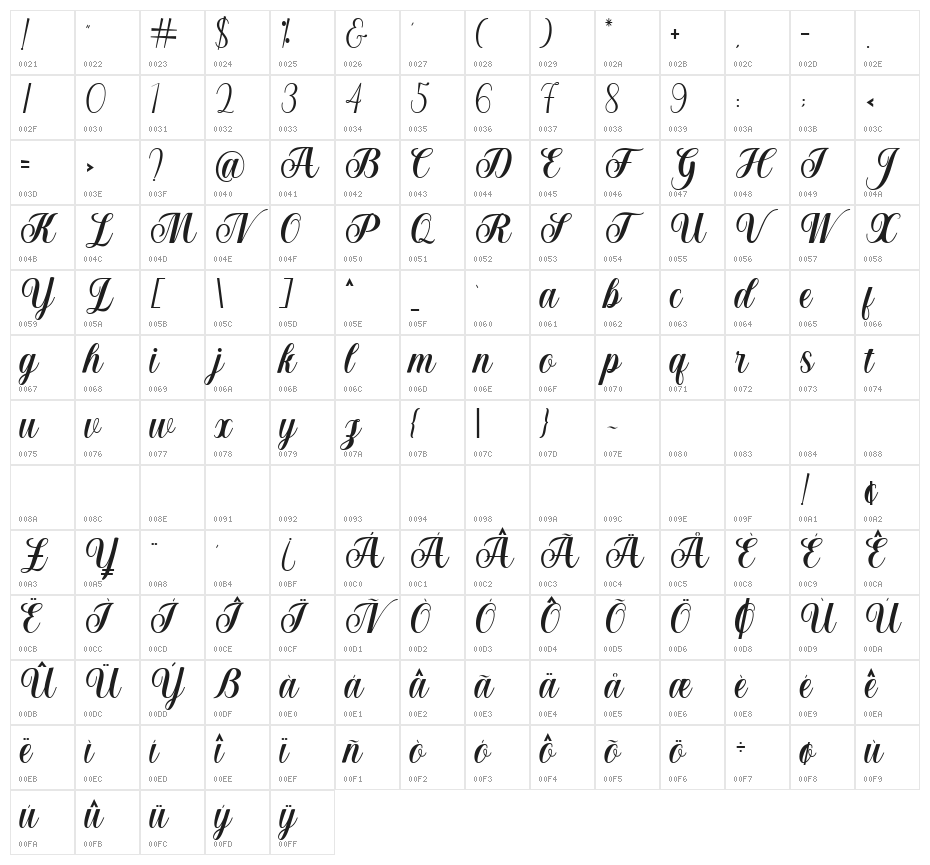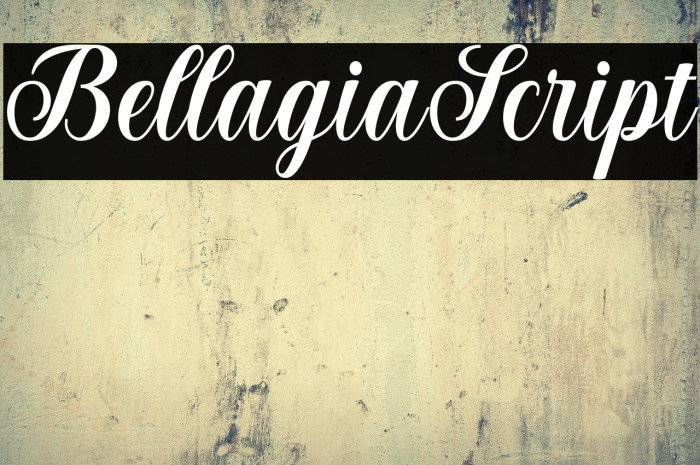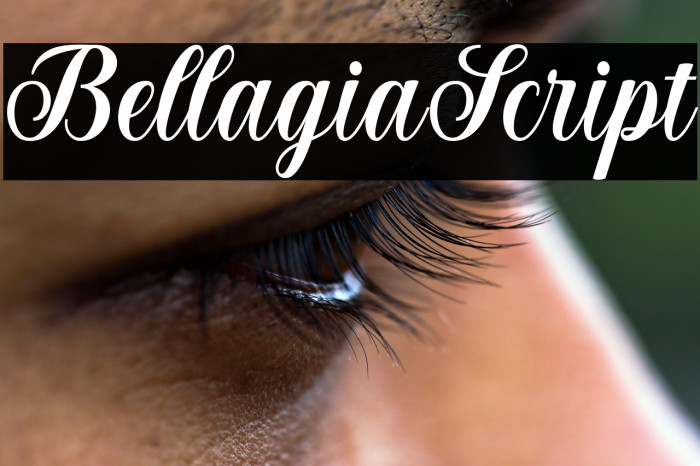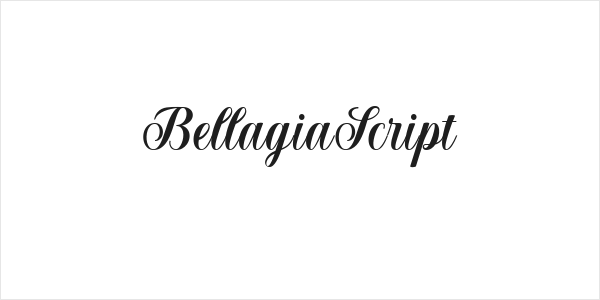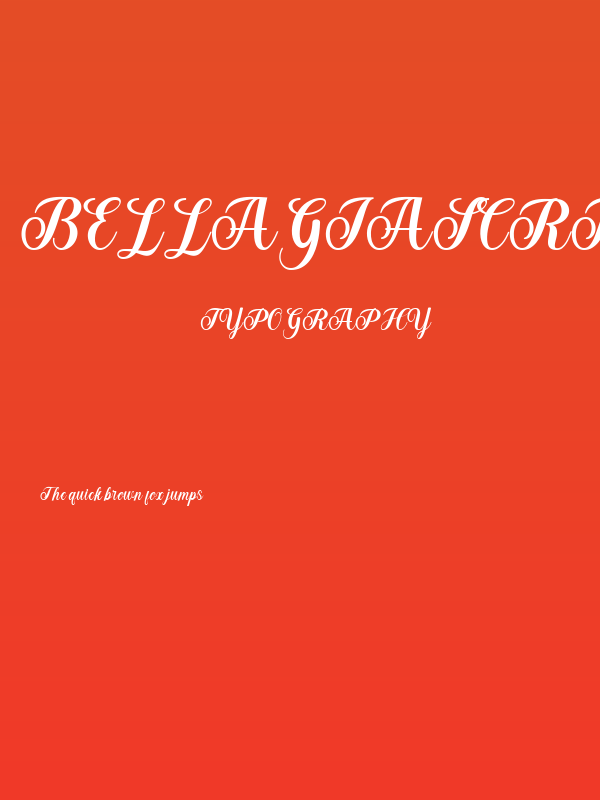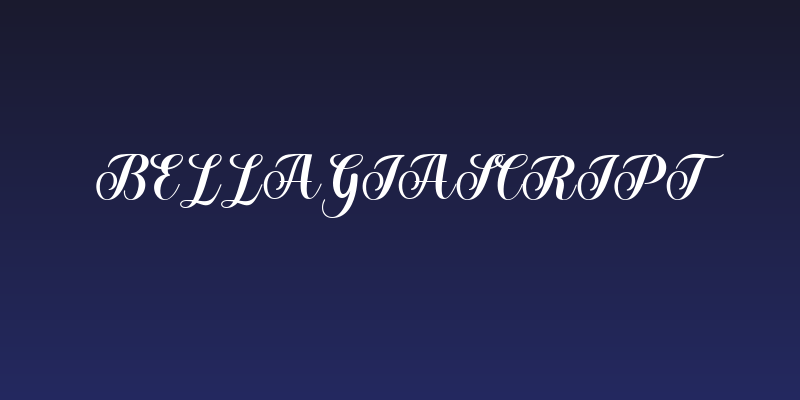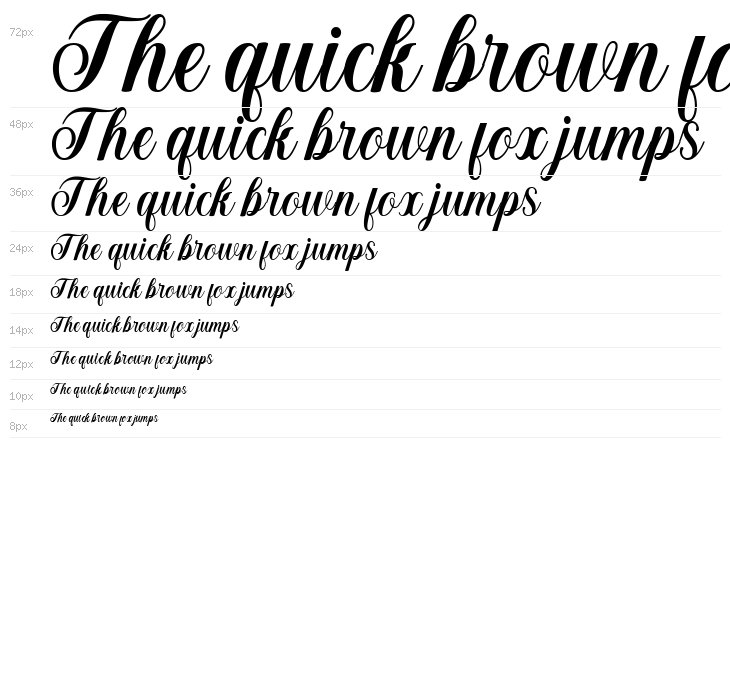
BellagiaScript Font
BellagiaScript Description
This elegant script font features a flowing, cursive style with smooth, connected strokes that exude sophistication and grace. The uppercase letters are slightly more ornate, with flourishes that add a touch of drama, while the lowercase letters maintain a consistent fluidity. The numerals are designed with a similar elegance, ensuring a cohesive look across all characters. The special characters complement the overall style, making it suitable for a variety of decorative applications.
Overall StyleElegant
Use CaseLogos, Invitations, Decorative text
Proposed ProjectsIdeal for wedding invitations, elegant branding, greeting cards, and luxury packaging.